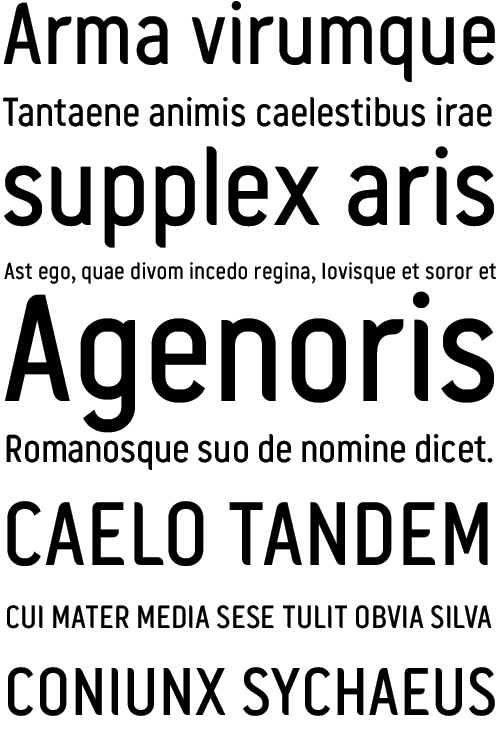
Nike World Cup
MADType worked with Nike designers to create this custom typeface for use on World Cup 2006 jerseys and related products.
Specifically, MADType completely re-drew and tightened up an existing Nike concept font to our exacting typographic standards. Space savings, legibility, and a unique style were all important considerations in the design.
MADType also tightened up the country based player numbers for the World Cup jerseys and converted them into fonts for easy use.
Year Designed:
2006
Weights:
Regular
In Use:
Ronaldo Jersey